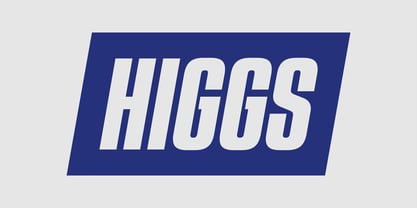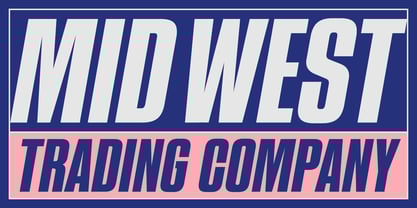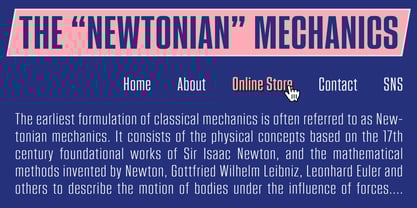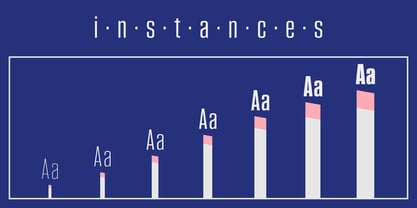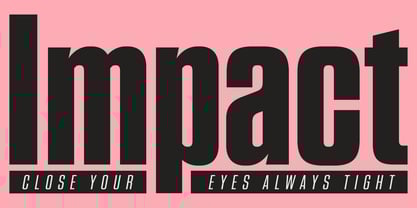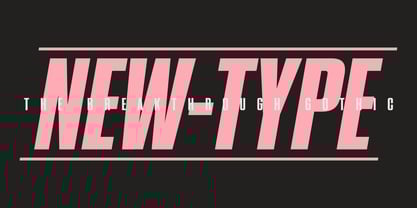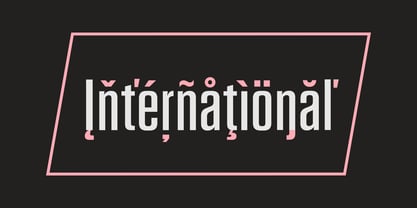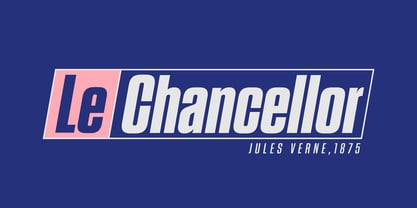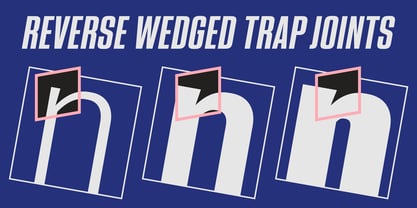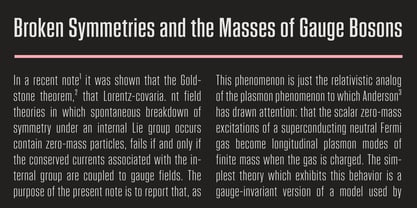
Higgs
by Dharma Type
This somewhat square-shaped and narrow typeface is designed based on the atmosphere of sci-fi movies and anime, while also drawing inspiration from wood typefaces commonly used in posters during the 1800s.
At the junctions where stems and bowls meet, it features a reverse ink trap treatment, unlike conventional typefaces. This is one of its most distinctive characteristics. This unique feature gives the typeface a sharp, striking, and stylish appearance.
The typeface family consists of seven weights, each with a corresponding italic style, and it supports a wide range of Latin-based languages.